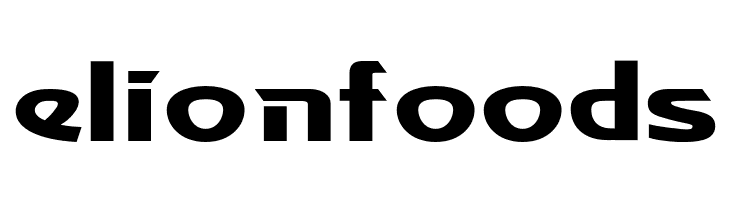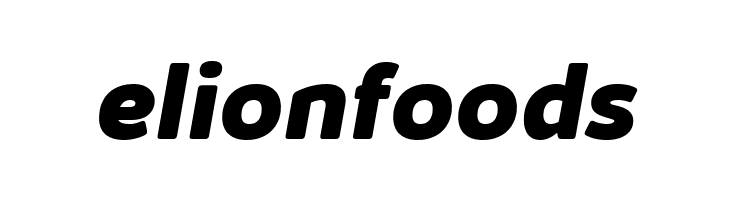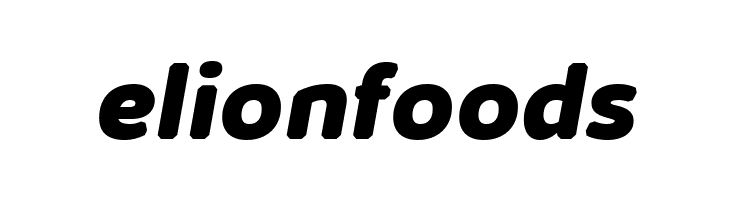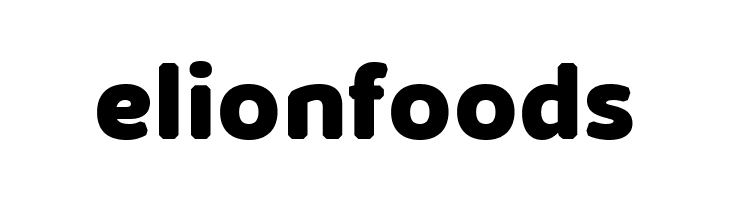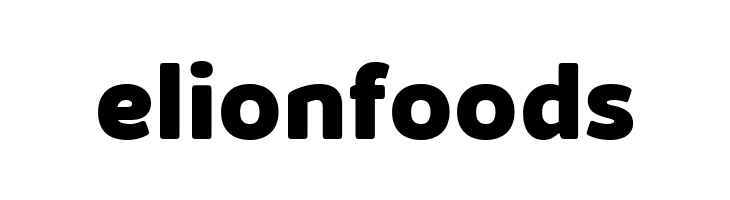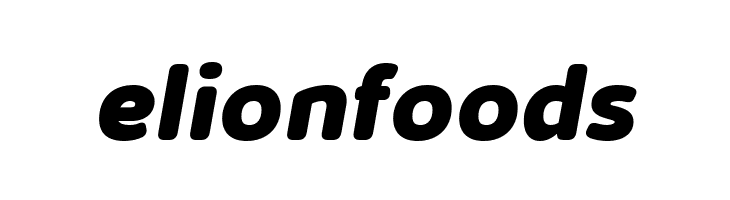
A bold, rounded font with smooth curves and consistent weight.
A bold, italic font with rounded edges and a dynamic style.
A bold and robust typeface with smooth, rounded characters.
A bold, italic sans-serif font with a dynamic and modern style.
A bold, rounded font with a modern and friendly style.
A bold, rounded, and italicized font with a modern and dynamic style.
A bold, geometric font with sharp, angular strokes and a modern aesthetic.
A bold, modern font with thick strokes and a strong presence.
A bold, italic sans-serif font with a dynamic and modern style.
A bold, italic font with a modern and dynamic style.